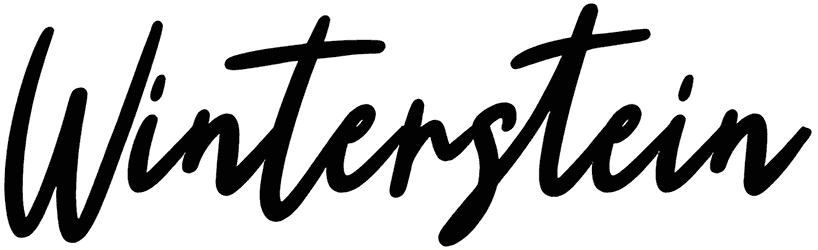
Winterstein Font
Consider utilizing the Winterstein font if you need to give the idea of closeness to the users who are the focus of your marketing campaign. Even though it may be hard to read, this attached script, handwritten font, is great for use in a broad range of projects, including signature motifs, tattoo designs, logotypes, and product packaging.